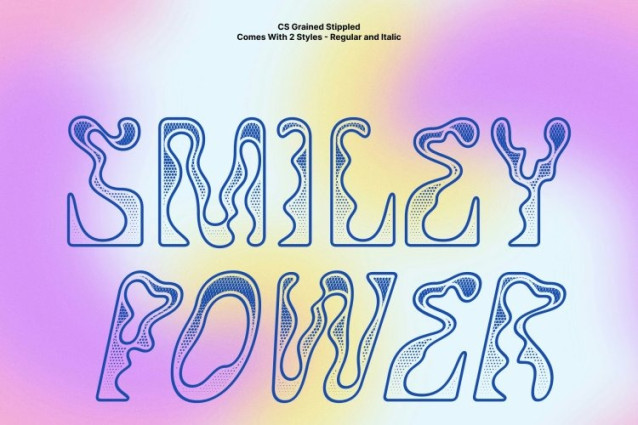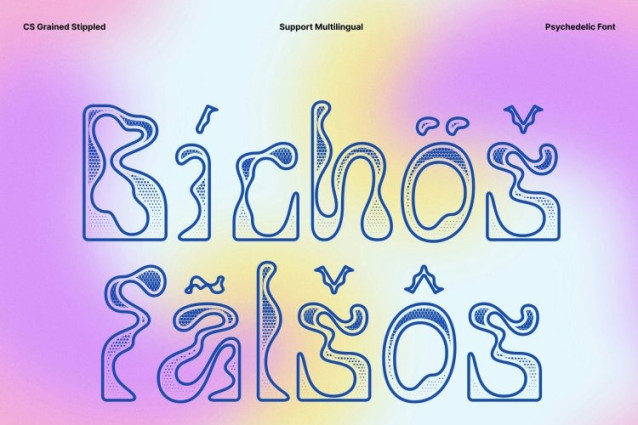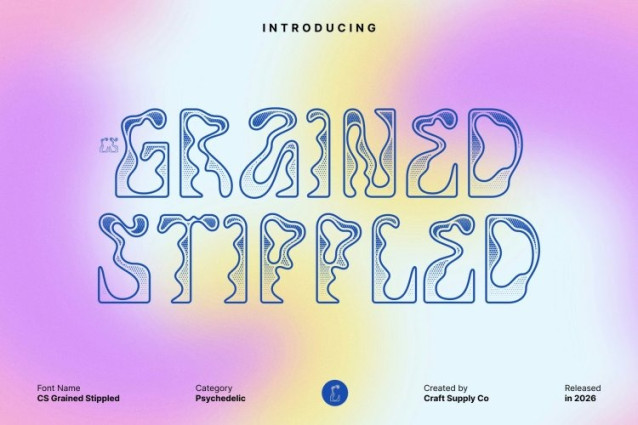
CS Grained Stippled Font
CS Grained Stippled Font is a bold, modern display font that channels the vibrant energy of psychedelic art and retro-futurism. Featuring wavy, fluid letterforms and experimental shapes, it radiates a playful and free-spirited personality. The stippled texture adds a tactile, handcrafted dimension, enhancing the hypnotic, dynamic nature of the typeface and making every letter visually captivating.
Curvy, Playful, and Full of Expression
With organic curves, flowing distortions, and unconventional forms, this font creates movement and spontaneity on the page. Its whimsical and warped design makes it perfect for music posters, festival graphics, album covers, and creative branding where bold expression is key. The textured stippling amplifies its retro-psychedelic vibe, giving each character depth and character.
Retro Psychedelia Meets Modern Design
This font blends nostalgic 60s and 70s psychedelic aesthetics with contemporary typographic refinement. Its warped, flowing shapes evoke the free-spirited energy of classic psychedelia while maintaining versatility and readability for modern design projects.
Ideal for Bold, Creative, and Eye-Catching Projects
Perfect for posters, digital campaigns, packaging, and branding, this font empowers designers to create visuals that are playful, energetic, and visually engaging. This font ensures your work stands out with vibrant style, expressive movement, and a distinctive textured presence that’s impossible to ignore.